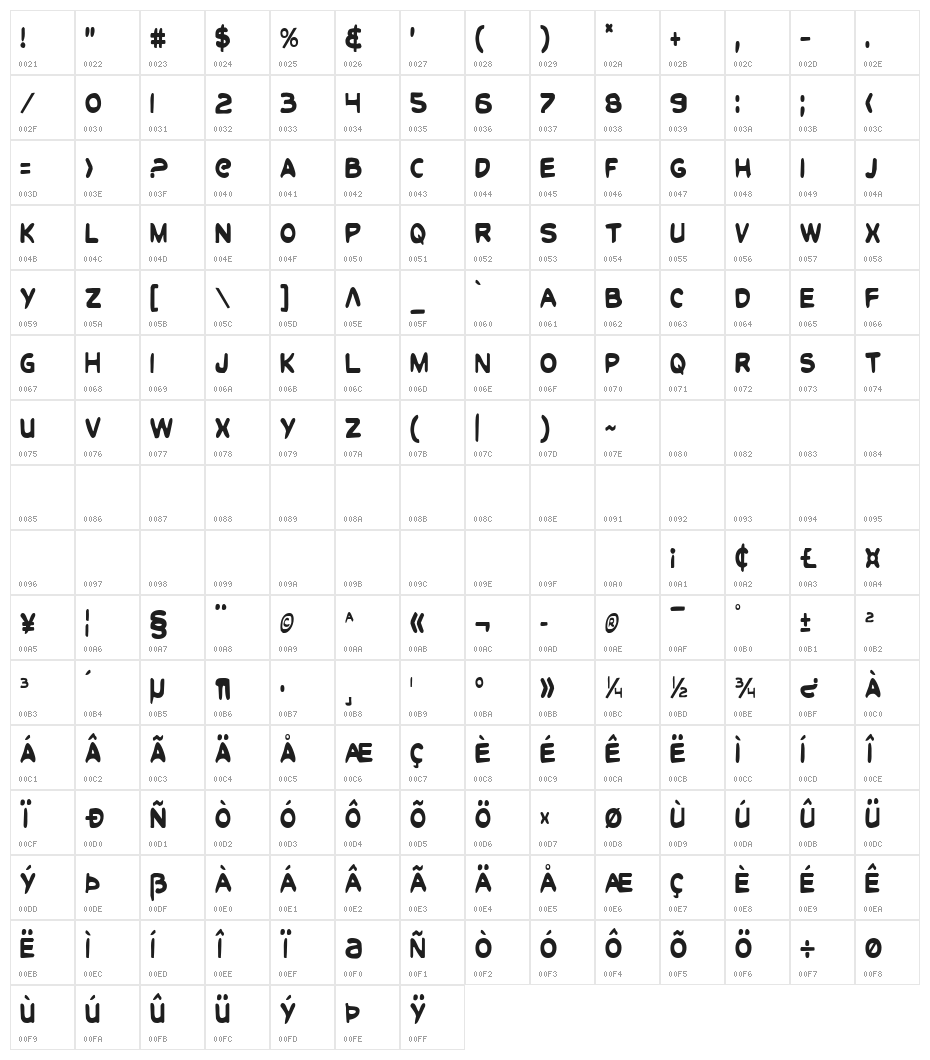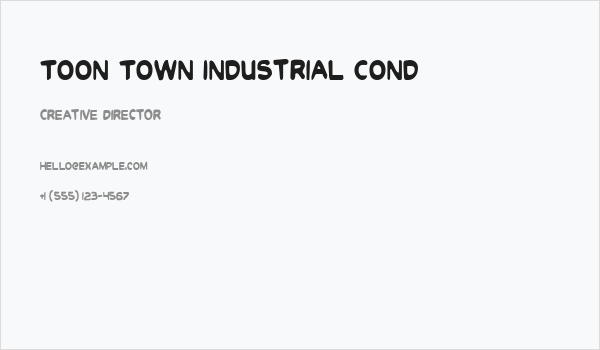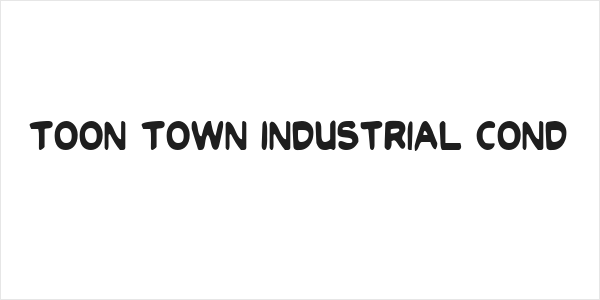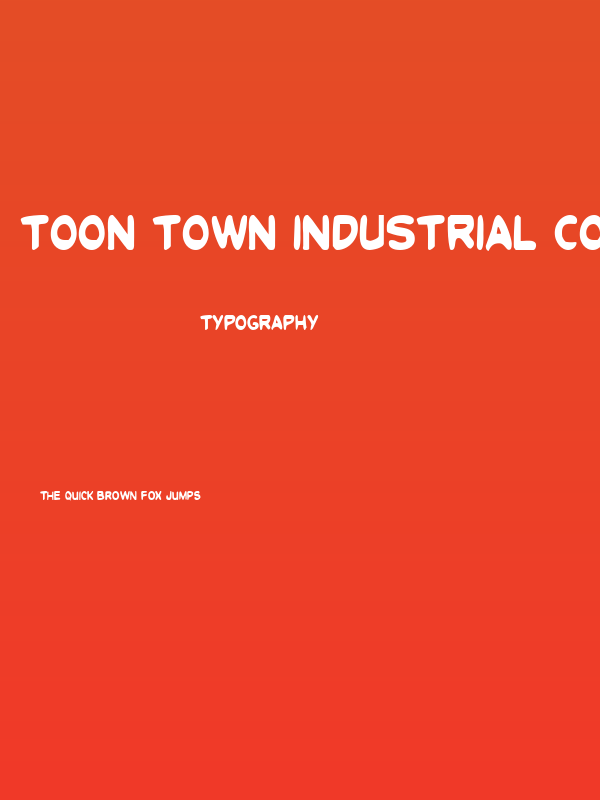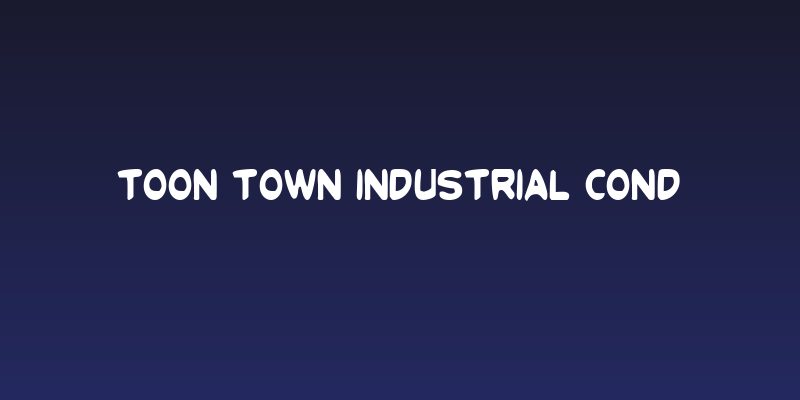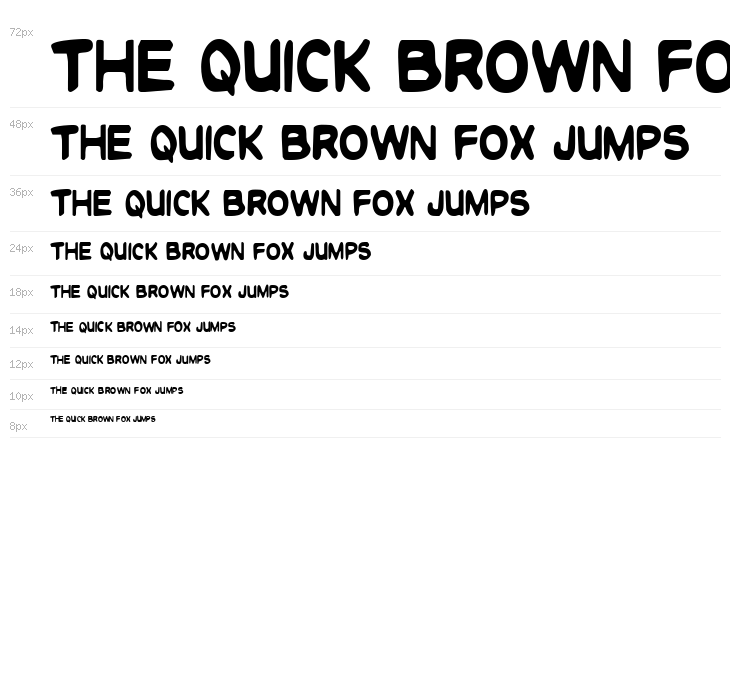
Toon Town Industrial Cond Font
Toon Town Industrial Cond Description
This playful and bold font features rounded, cartoon-like characters that exude a sense of fun and whimsy. The letters are thick and slightly irregular, giving them a hand-drawn appearance that adds to their charm. The font maintains a consistent weight throughout, with smooth curves and a friendly demeanor. It is particularly eye-catching and suitable for designs that aim to capture attention with a lighthearted and approachable style. The characters are well-spaced, ensuring readability while maintaining a cohesive look.
| Overall Style | Playful, Cartoonish |
| Proposed Projects | Ideal for children's books, comic strips, playful branding, and fun event posters. |